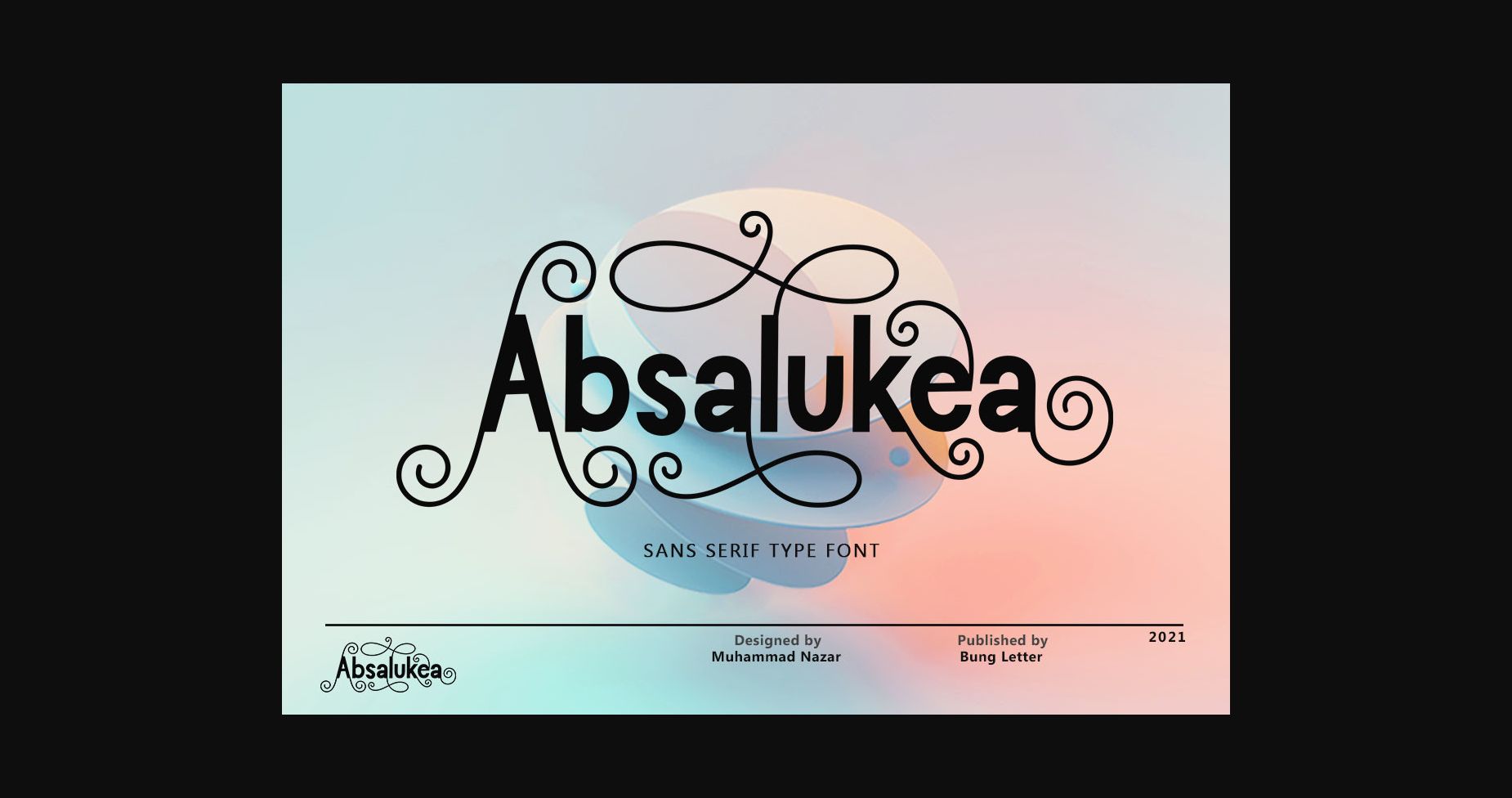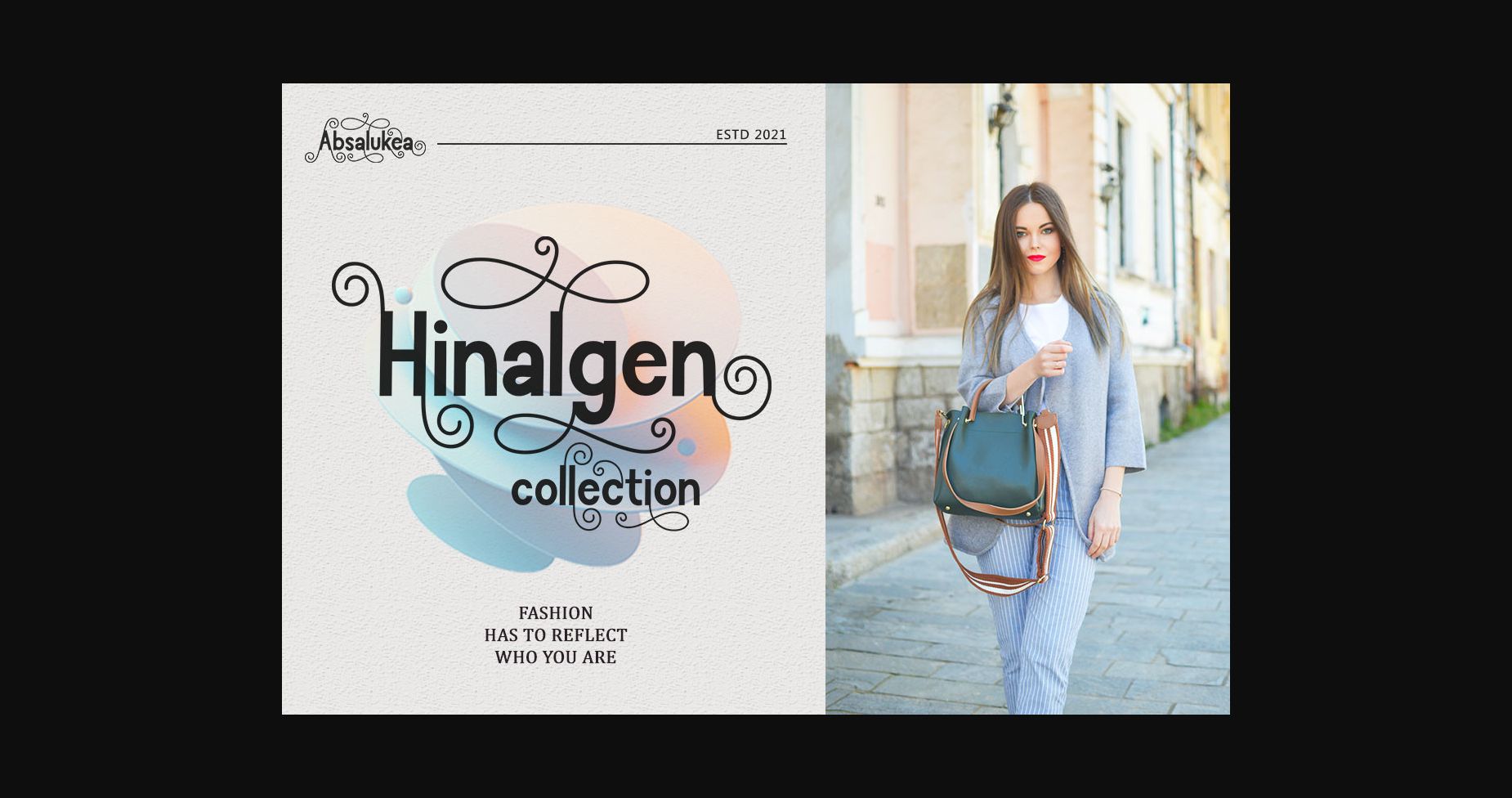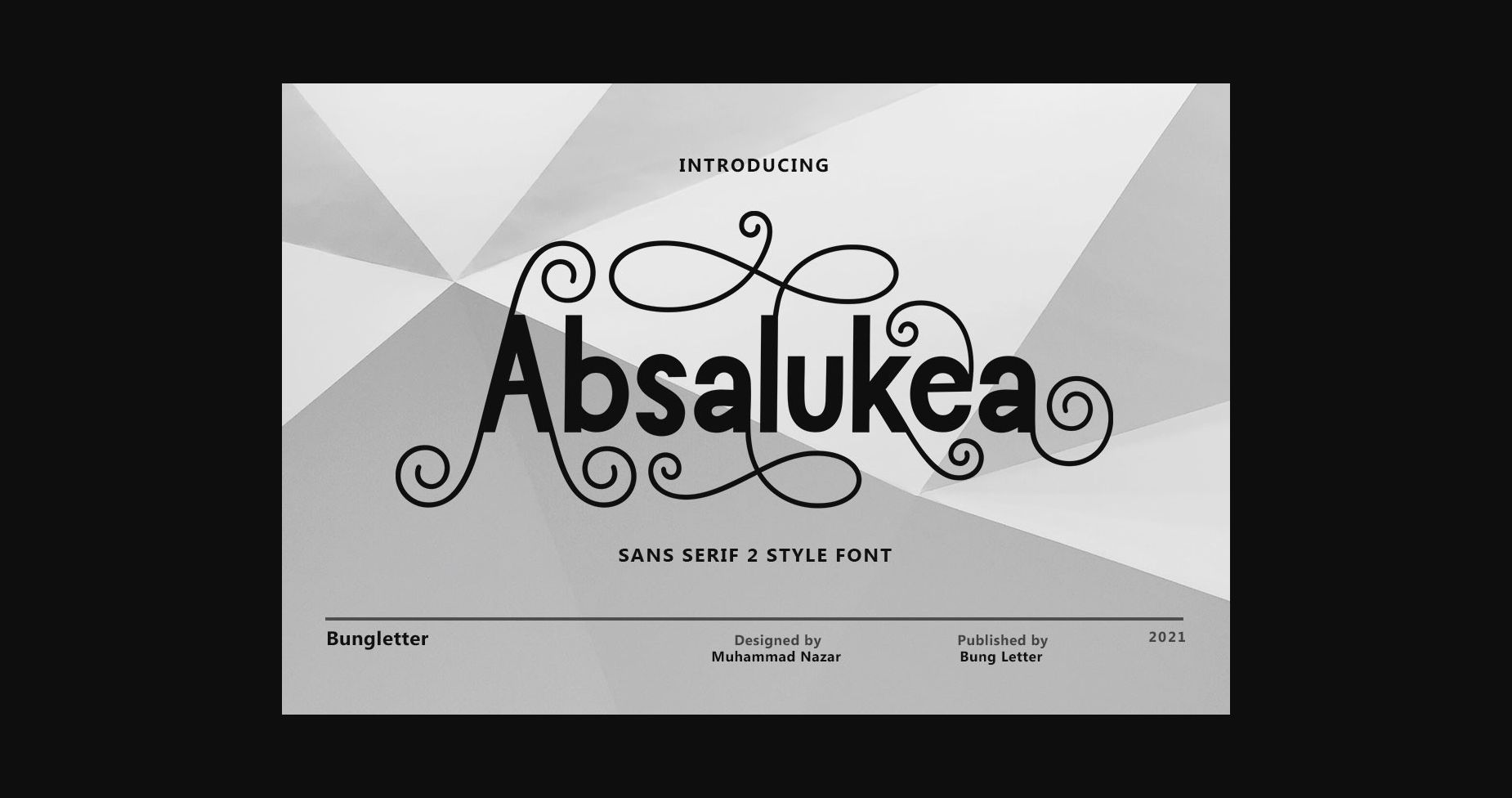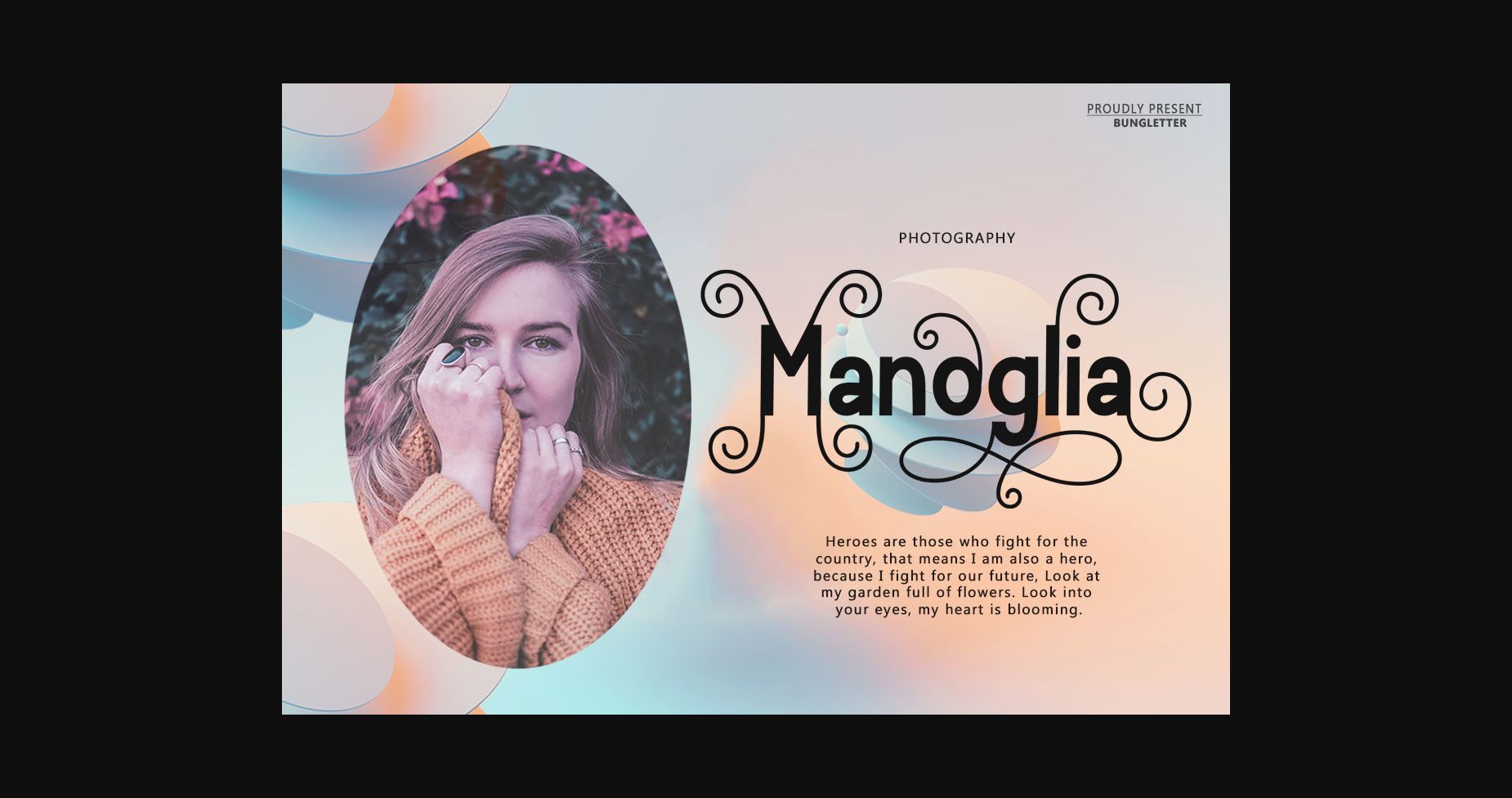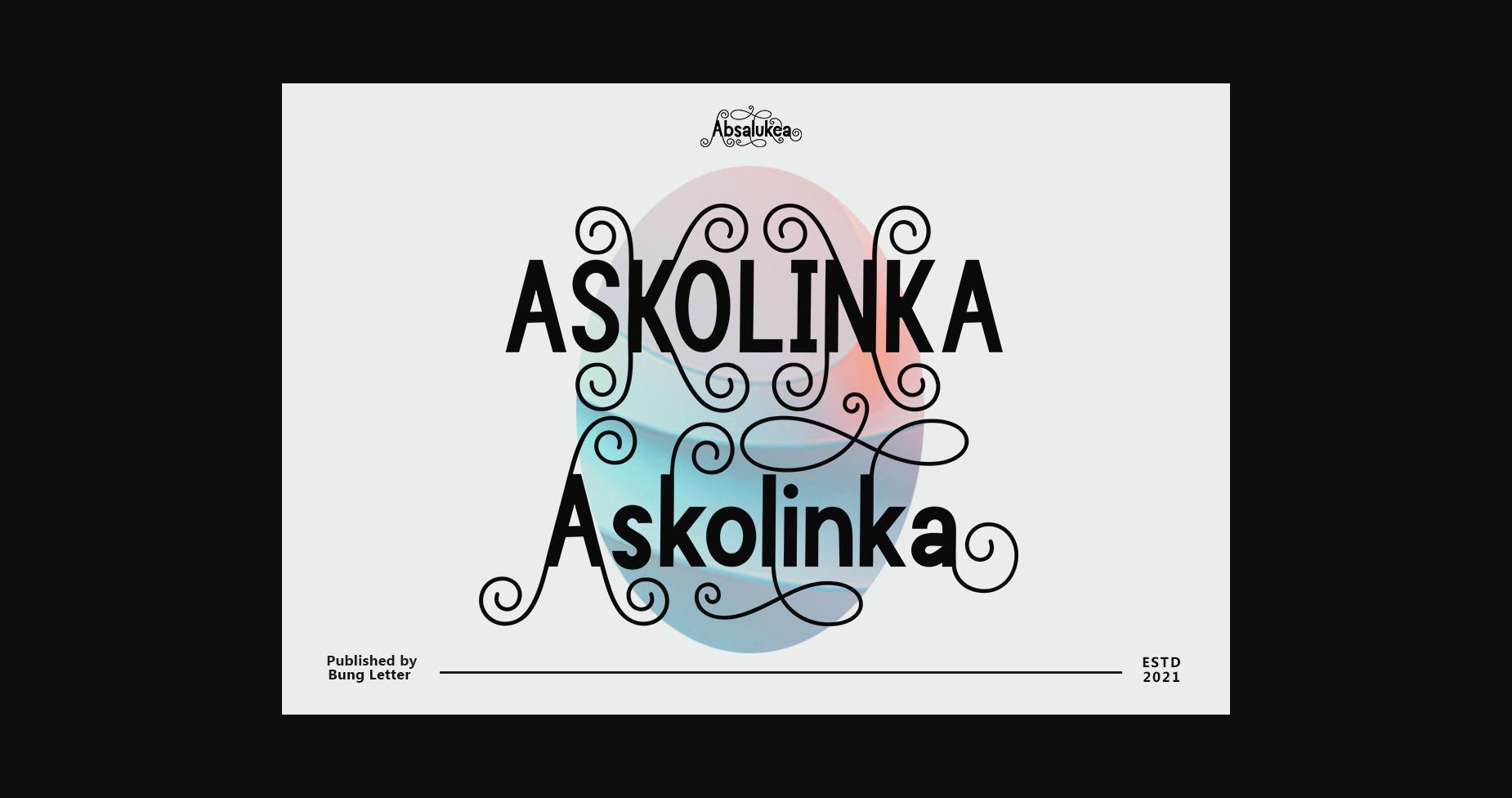
About Absalukea Font
Absalukea is an elegant and uniquely lettered sans serif font. It is PUA encoded which means you can access all glyphs and swashes with ease!